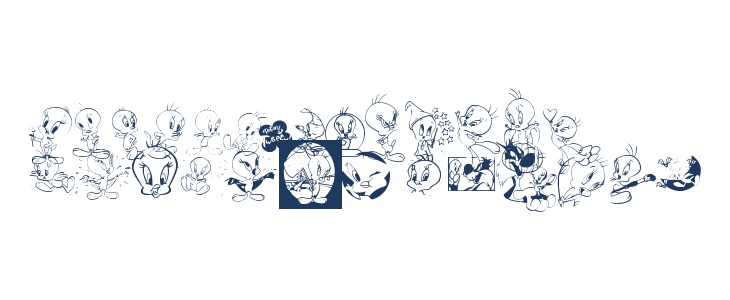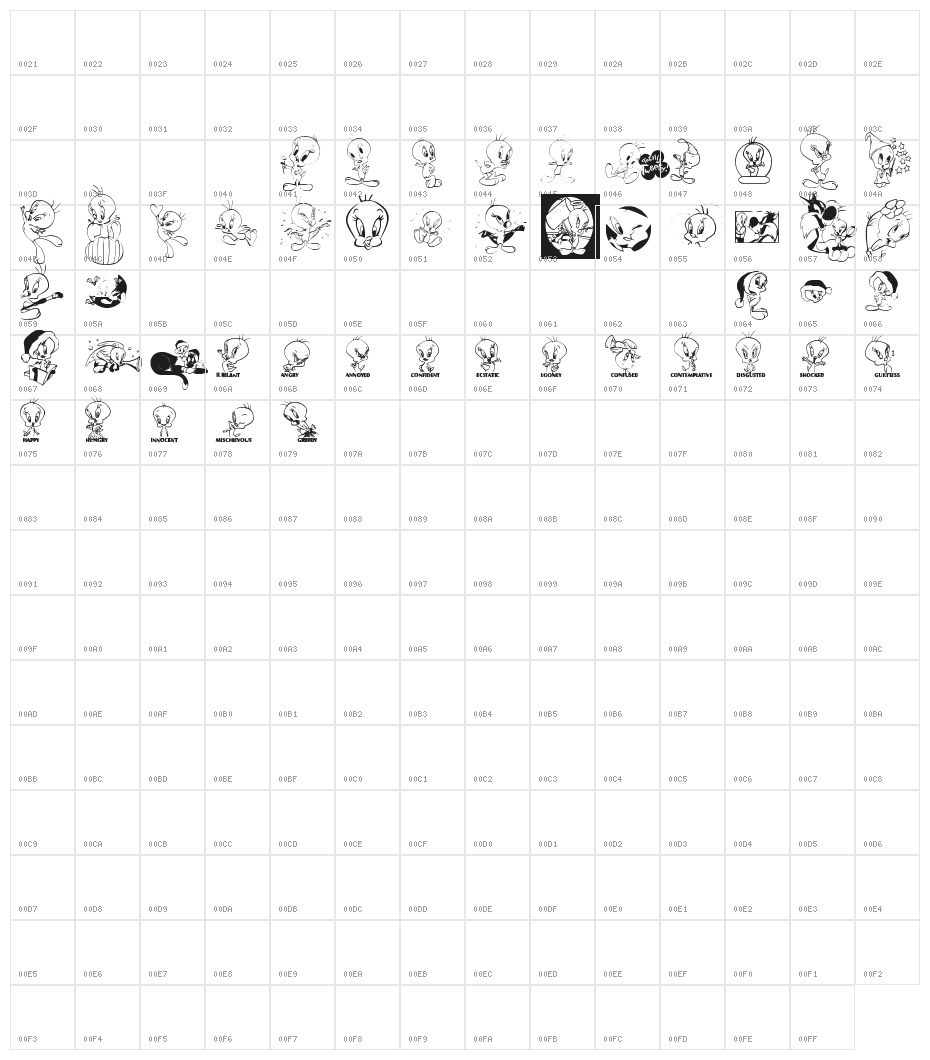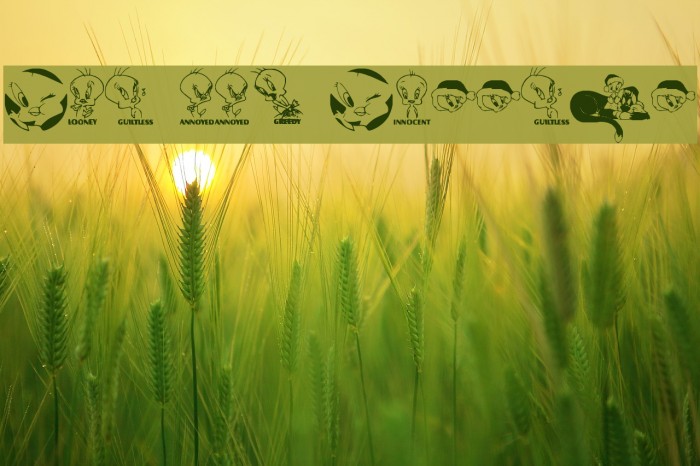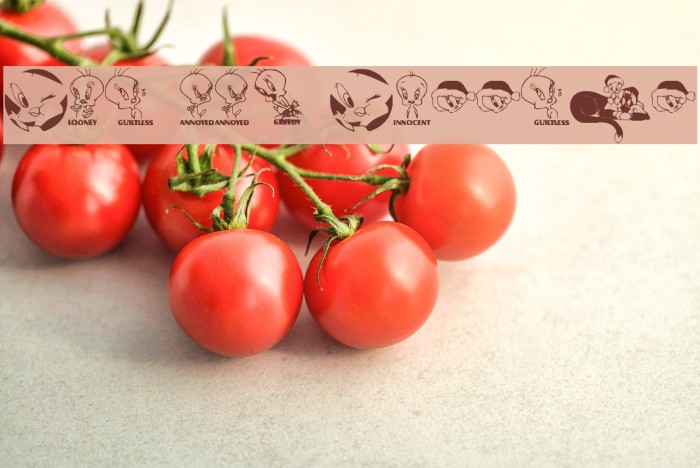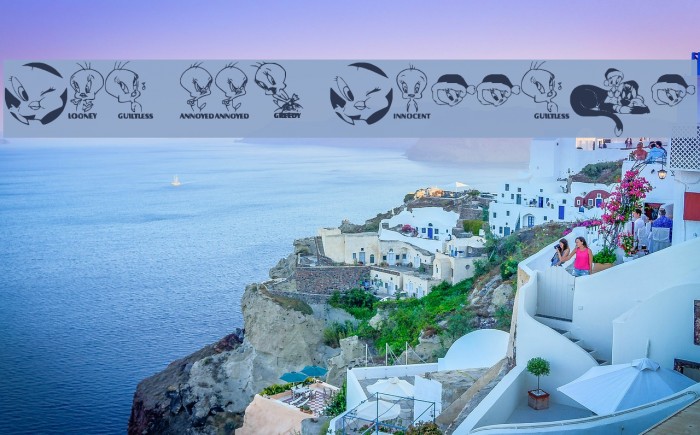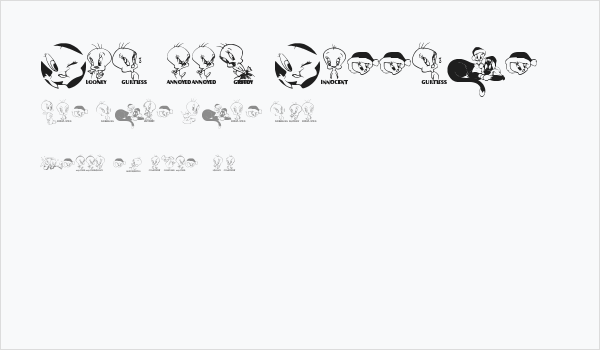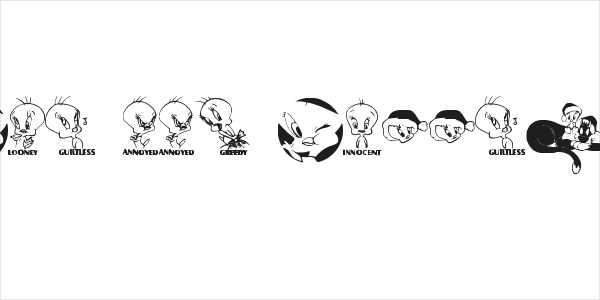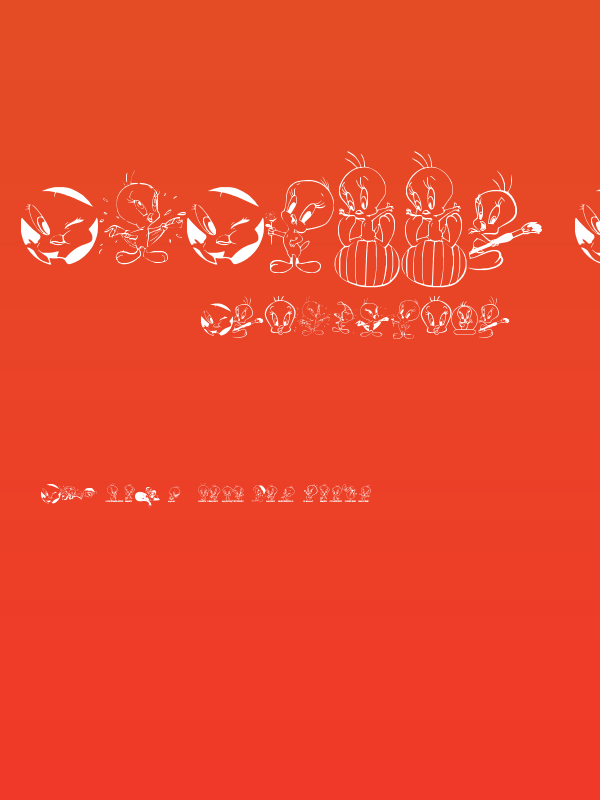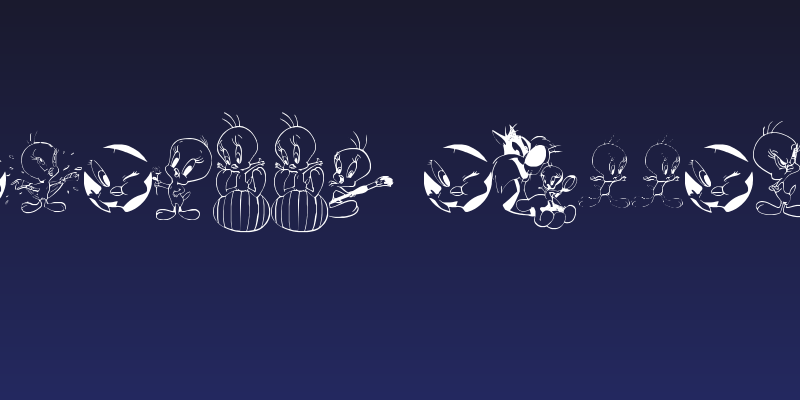
Totally Tweetie Font
Totally Tweetie Description
A decorative display font featuring cartoon-style illustrations of a well-known animated bird character in various expressive poses and moods, with each glyph representing a unique drawing rather than a traditional letterform.
| Overall Style | Decorative, Playful, Cartoonish |
| Use Case | Logos, Posters, ChildrenΓ’β¬β’s materials, Themed graphics |
| Proposed Projects | ChildrenΓ’β¬β’s books, greeting cards, party invitations, comic strips, themed posters. |